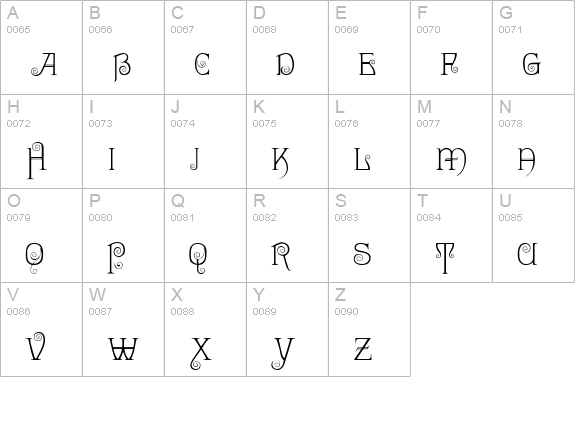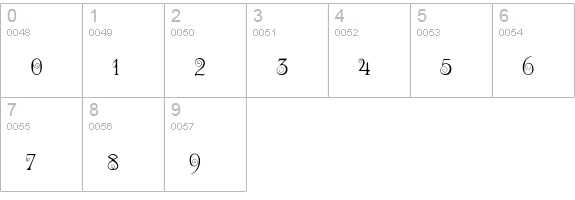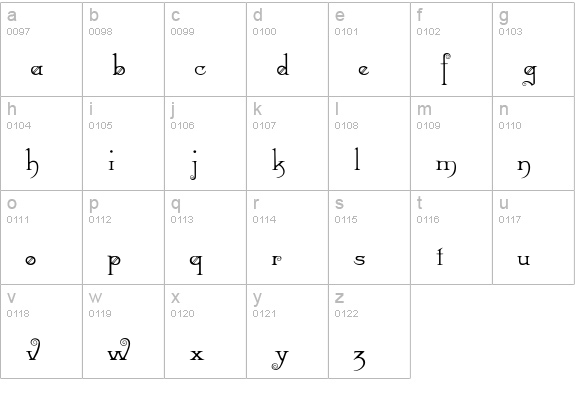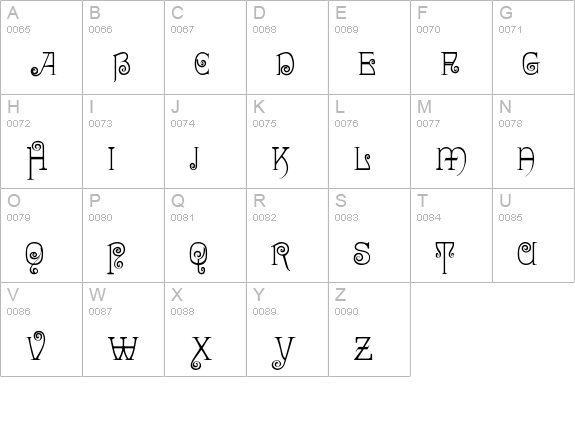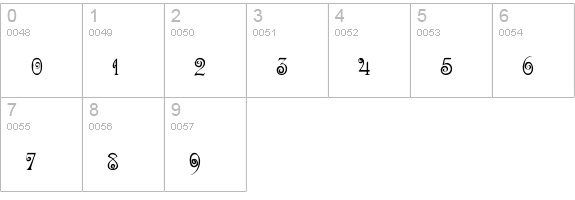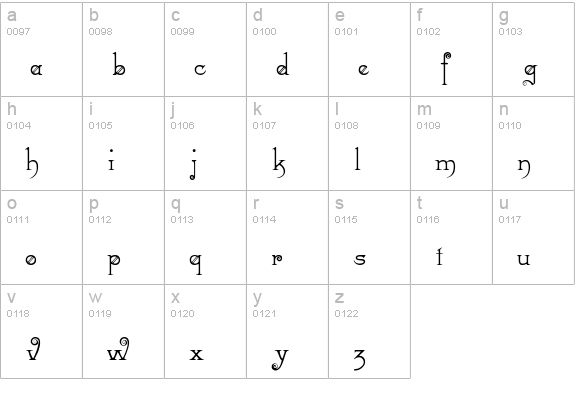
Introducing Riccio Display Script SSi, a stunning font that exudes elegance and sophistication. This beautiful script font is perfect for adding a touch of charm and grace to your designs. Riccio Display Script SSi showcases intricate hand-drawn letterforms with a unique twist, making it a truly eye-catching choice for any project. Whether you're designing invitations, branding materials, or advertisements, this font will effortlessly captivate your audience. Not only does Riccio Display Script SSi offer exceptional aesthetic appeal, but it also provides versatility in its usage. Its legibility and clarity make it suitable for both large headlines and smaller body text, ensuring your message is delivered with utmost clarity and impact. One of the best aspects of Riccio Display Script SSi is that it is freely available to download at FontsMarket.com. Yes, you read that right - this extraordinary font can be yours without any cost. Embrace the creative possibilities that Riccio Display Script SSi offers, and let your imagination run wild. So, why wait? Unlock the potential of your designs with Riccio Display Script SSi. Download it today from FontsMarket.com and experience the free-flowing elegance that this font brings to your projects.